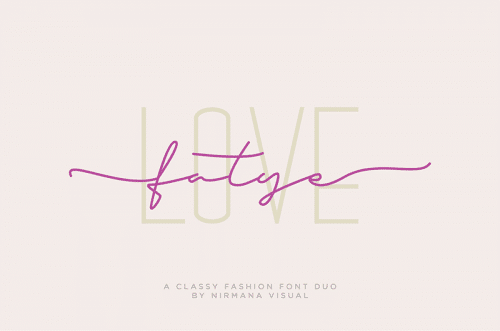
Fatye FontBeautiful typographic harmony for a diversity of design projects, including logos & branding, wedding designs, social media posts, advertisements & product designs.